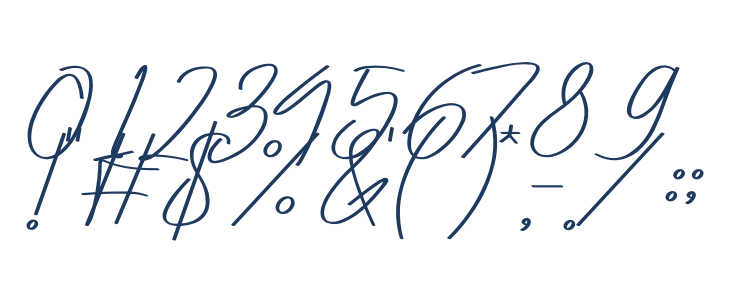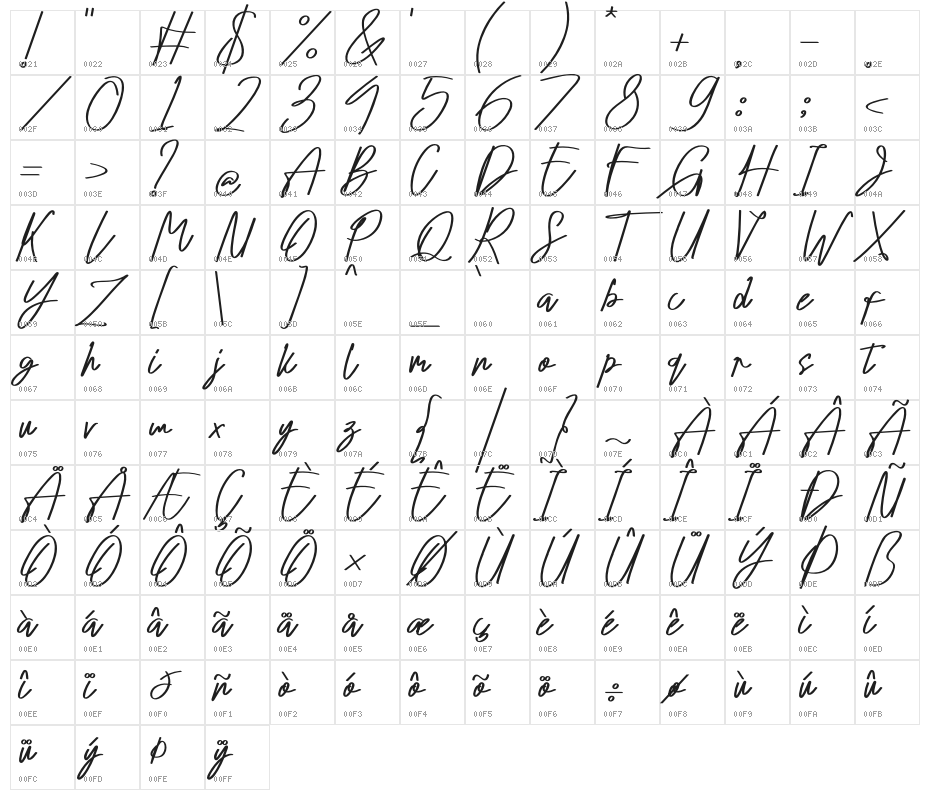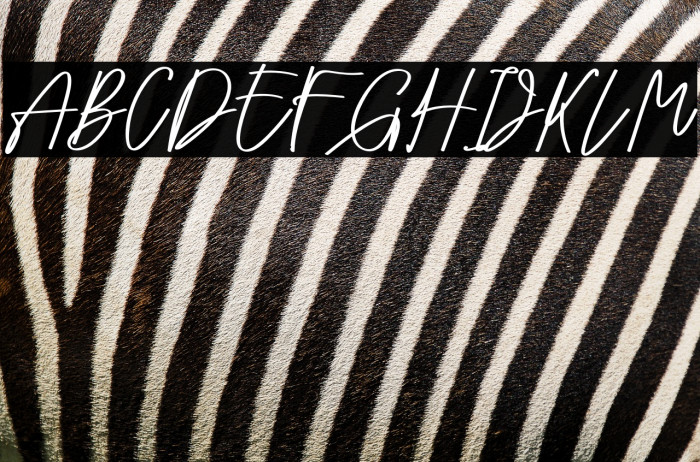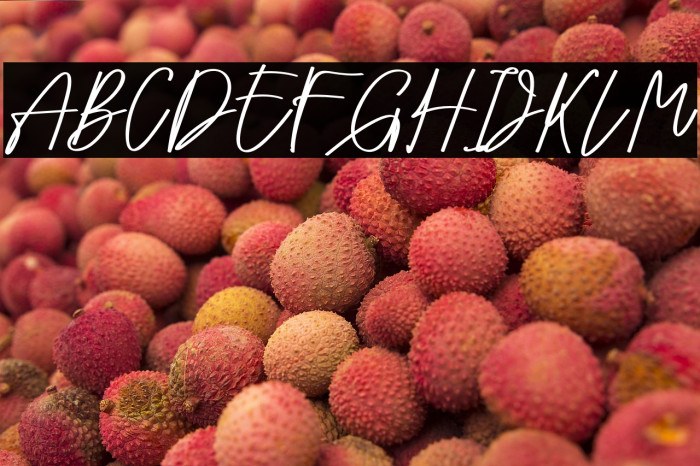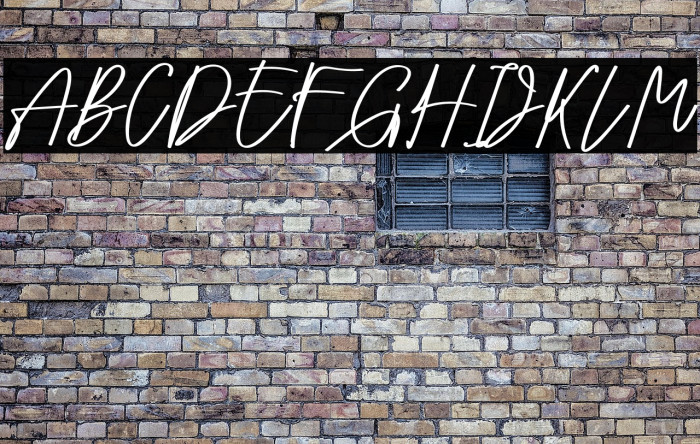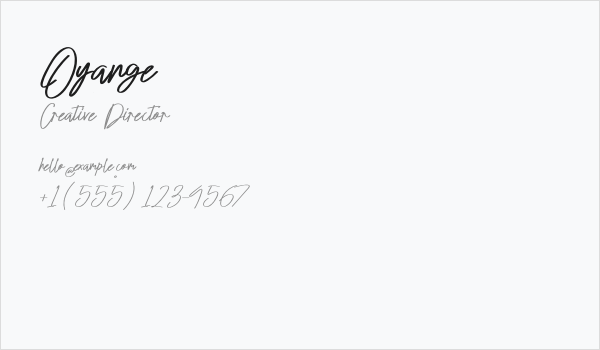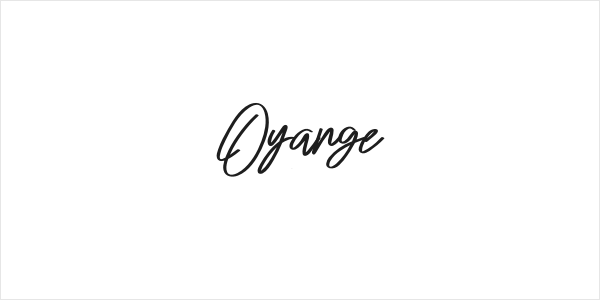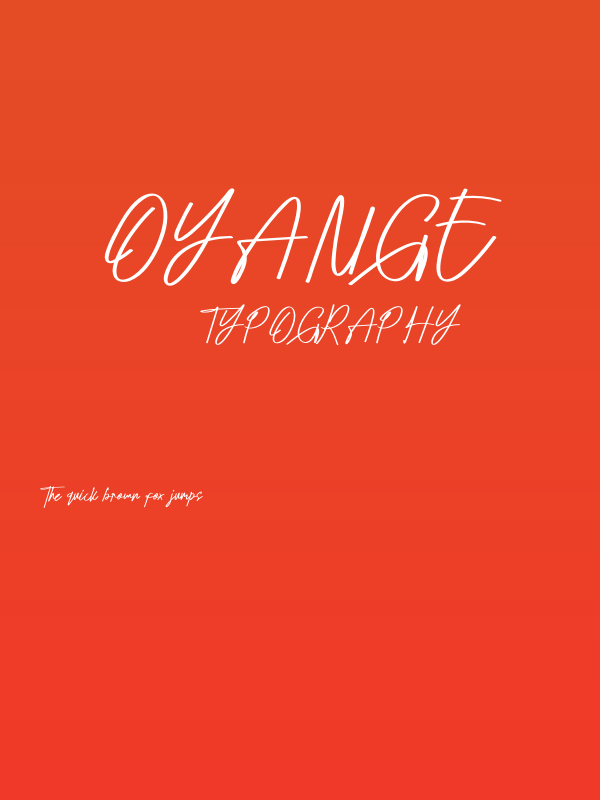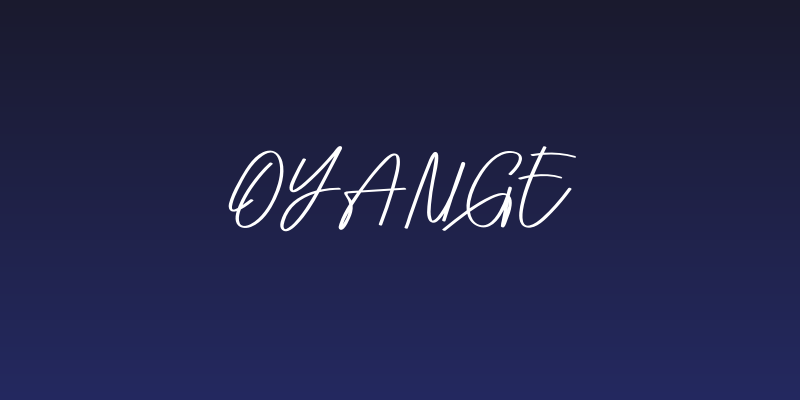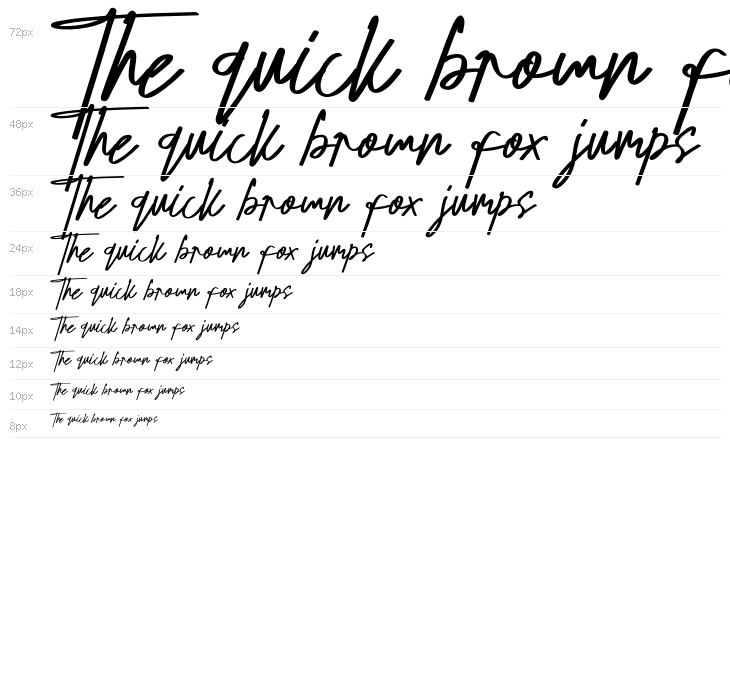
Oyange Font
Oyange Description
This font features a dynamic and fluid script style, characterized by its elegant and flowing letterforms. The uppercase letters exhibit a graceful, cursive quality with smooth curves and a slight slant, creating a sense of movement and sophistication. The lowercase letters maintain this fluidity, with some letters connecting seamlessly, enhancing the handwritten appearance. The numerals are consistent with the script style, offering a cohesive look across all characters. Special characters are thoughtfully designed to match the overall aesthetic, ensuring versatility in various design contexts. This font's expressive nature makes it ideal for projects that require a personal touch or a sense of elegance.